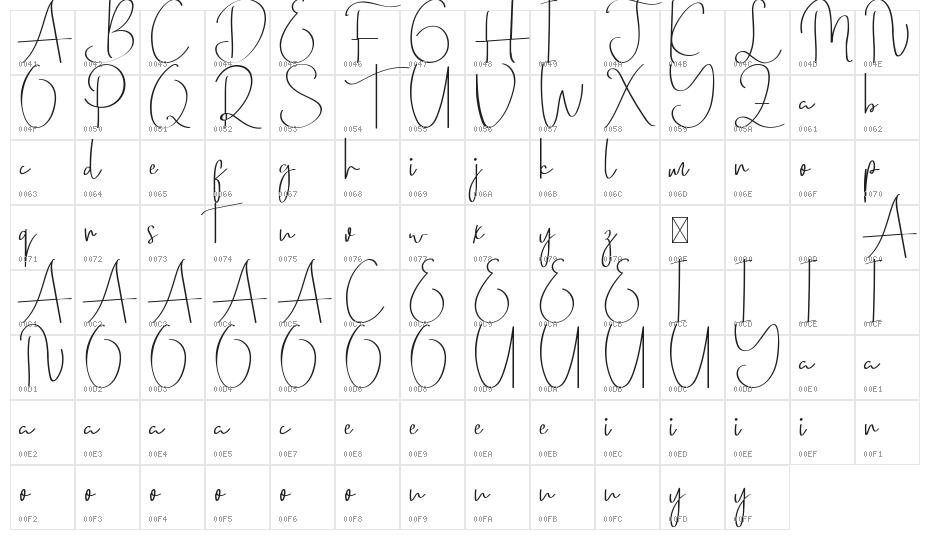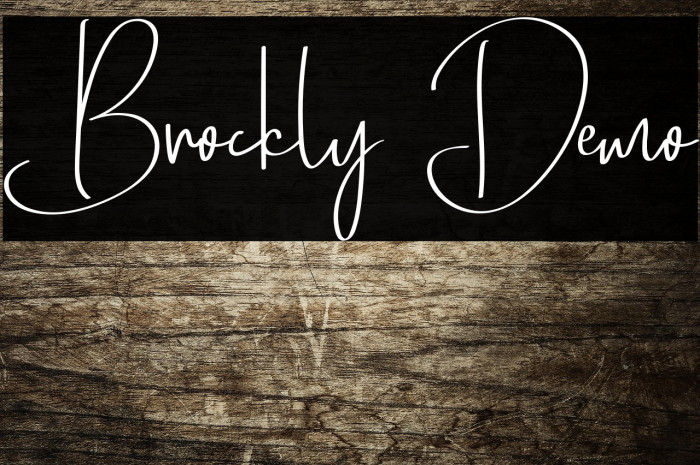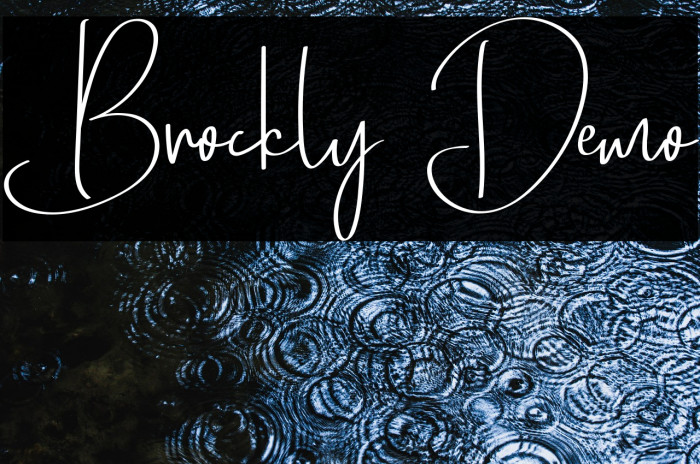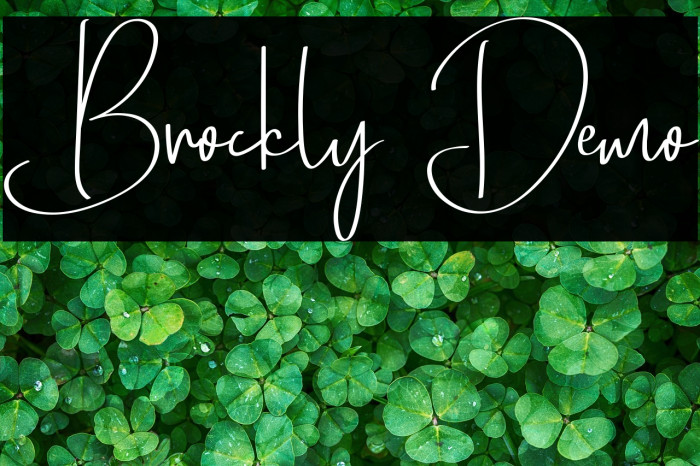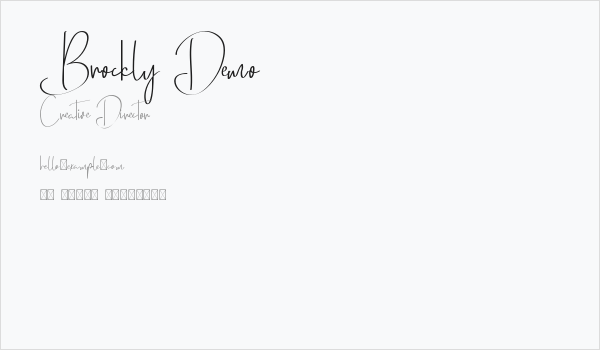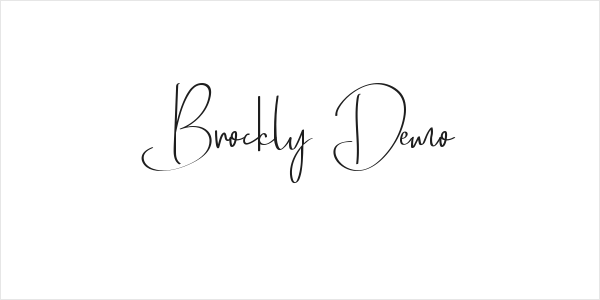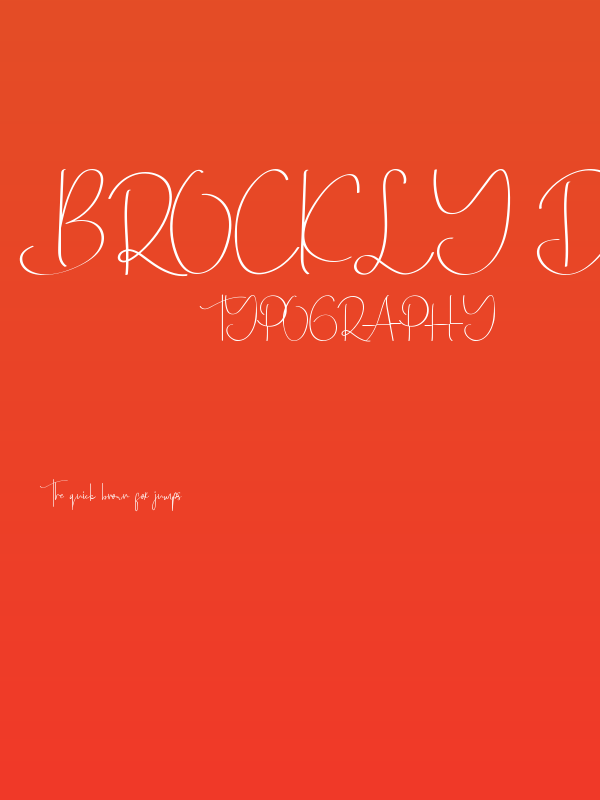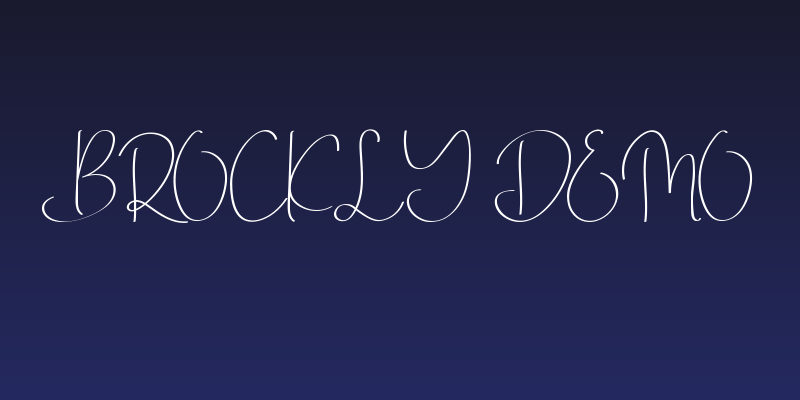
Brockly Demo Font
Brockly Demo Description
This font features a unique blend of elegance and playfulness, characterized by its thin, flowing lines and whimsical curves. The uppercase letters are tall and slender, with a distinctive looped style that adds a touch of sophistication. The lowercase letters maintain a cohesive flow, with some letters extending below the baseline, creating a dynamic and lively appearance. The numerals are consistent with the overall style, offering a harmonious look. Special characters are thoughtfully designed to complement the alphabet, ensuring versatility in various design contexts.
| Use Case | Logos, Invitations, Decorative Text |
| Proposed Projects | Ideal for wedding invitations, greeting cards, branding projects, and elegant packaging designs. |